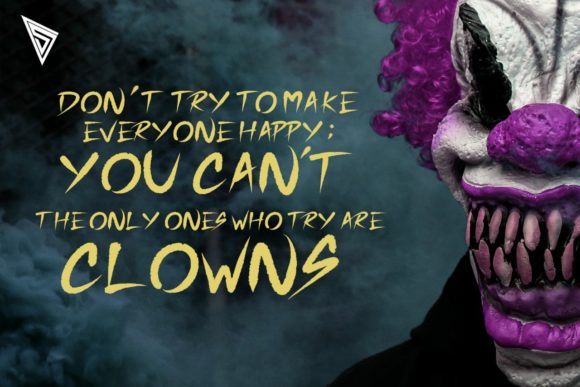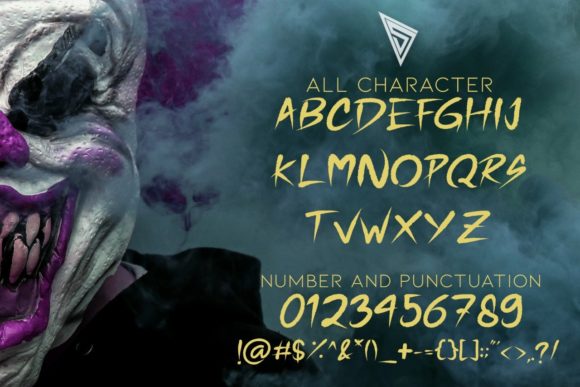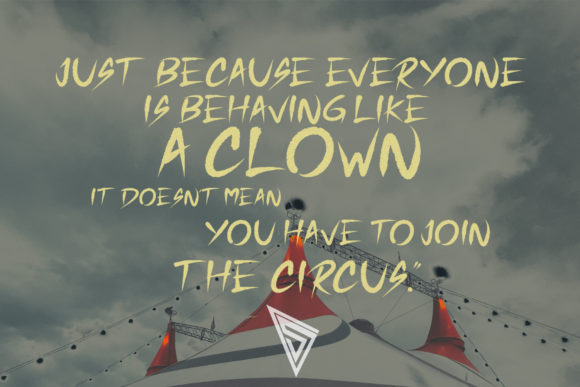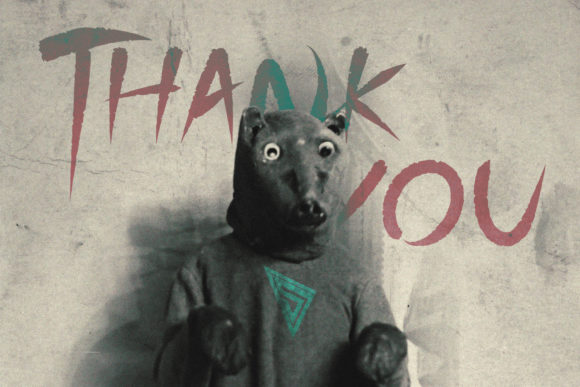
Cursed Parade Font: The Ultimate Choice for Bold and Edgy Designs
In the world of typography, fonts play a crucial role in conveying the tone and personality of a design. For designers and crafters looking to add a touch of edginess to their work, the Cursed Parade Font is an excellent choice. This rough textured and street-styled display font is perfect for creating bold and eye-catching designs that demand attention.
What is Cursed Parade Font?
Cursed Parade is a unique and versatile font that is designed to add a rugged and urban feel to any design. Its rough texture and street-style aesthetic make it an ideal choice for designers who want to create bold and edgy designs that stand out from the crowd. Whether you’re working on a t-shirt design, logo, advertisement, or clothing label, Cursed Parade Font is sure to make a statement.
Key Features of Cursed Parade Font
So, what makes Cursed Parade Font so special? Here are some of its key features:
- Rough Textured Design: The Cursed Parade Font features a rough textured design that gives it a rugged and urban feel.
- Street-Styled Aesthetic: The font’s street-styled aesthetic makes it perfect for designs that require a bold and edgy look.
- Display Font: Cursed Parade is a display font, making it ideal for use in headlines, titles, and other prominent design elements.
- Versatile: The font is versatile and can be used in a variety of design applications, including t-shirts, sportswear, logos, advertisements, clothing, and more.
Use Cases for Cursed Parade Font
So, how can you use Cursed Parade Font in your designs? Here are some use cases to get you started:
- T-Shirt Designs: Create bold and eye-catching t-shirt designs that demand attention with Cursed Parade Font.
- Sportswear: Add a touch of edginess to your sportswear designs with this rugged and urban font.
- Logos: Create memorable and impactful logos that stand out from the crowd with Cursed Parade Font.
- Advertisements: Use Cursed Parade Font to create bold and attention-grabbing advertisements that drive results.
- Clothing Labels: Add a touch of personality to your clothing labels with this unique and versatile font.
Why Choose Cursed Parade Font?
With so many fonts to choose from, why should you choose Cursed Parade Font? Here are some reasons why:
- Unique Design: Cursed Parade Font features a unique design that sets it apart from other fonts.
- High-Quality: The font is high-quality and can be used in a variety of design applications.
| Font Name | Cursed Parade Font |
| Author | Senekaligrafi Font |
In conclusion, Cursed Parade Font is an excellent choice for designers and crafters looking to add a touch of edginess to their work. Its rough textured and street-styled design makes it perfect for creating bold and eye-catching designs that demand attention. With its versatility, high-quality design, and ease of use, Cursed Parade Font is a must-have for any designer or crafter looking to take their designs to the next level.